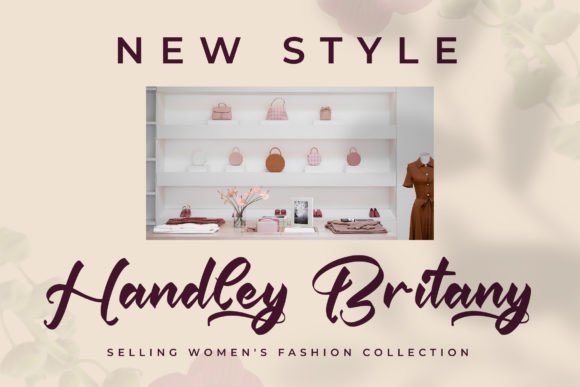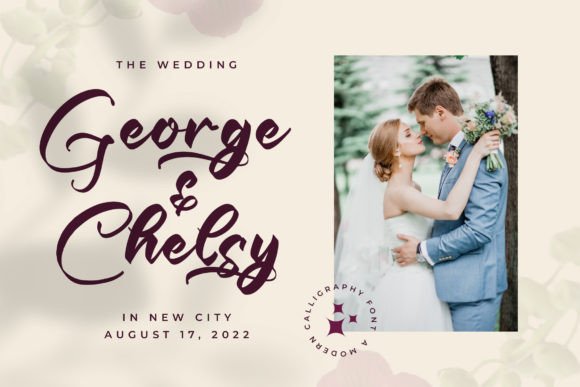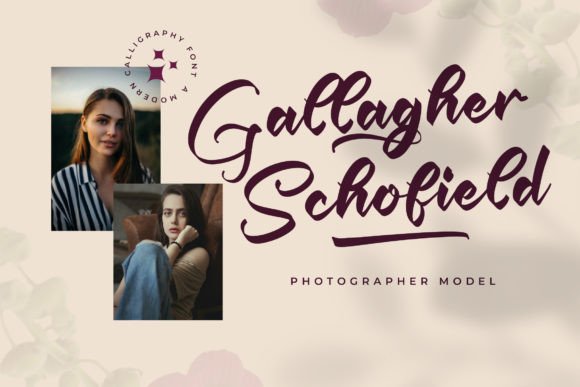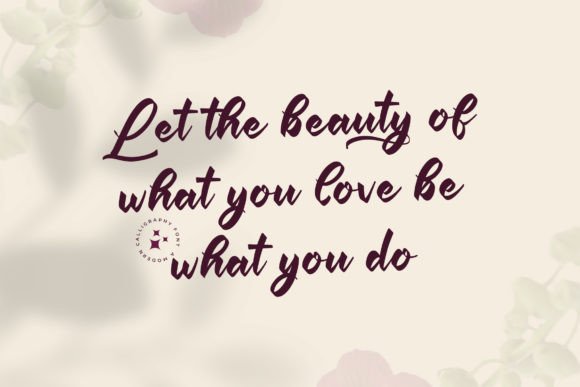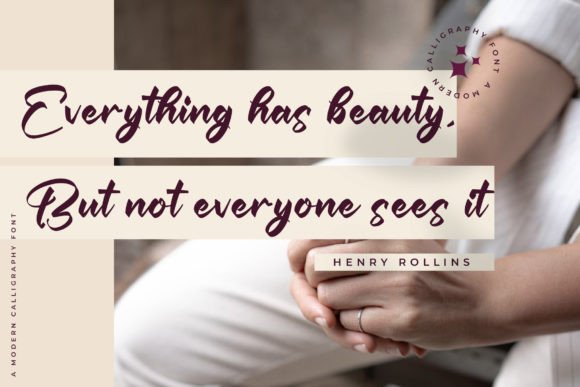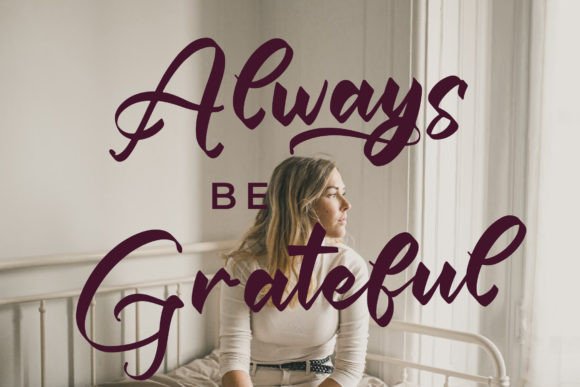
Introduction to Michele Fatehry Font
As a designer, there’s nothing quite like the thrill of bringing a creative project to life. The moment when all the elements come together in perfect harmony, and your vision takes shape. For many of us, that moment often begins with the perfect font. And today, we’re excited to introduce you to one of the most versatile and beautiful script fonts out there: the Michele Fatehry Font. This stunning modern calligraphy font is the perfect addition to any design project, from logos and branding to homeware and product packaging.
With its elegant, flowing script and high-quality design, the Michele Fatehry Font is a valuable resource for designers of all levels. Whether you’re working on a personal project or a client brief, this font is sure to add a touch of sophistication and style to your work. Plus, with a transparent background and free download option, you can easily incorporate it into your designs without any hassle.
Key Features of Michele Fatehry Font
- High-quality font designed for creative projects, perfect for adding a touch of elegance and sophistication.
- Transparent background, allowing for seamless integration with any design element.
- Designed to be highly legible, with a clear and crisp font that is suitable for both print and digital applications.
- Ideal for use in various design projects, including logos, branding, and typography-based art.
Honest Review: Michele Fatehry Font
I recently stumbled upon the Michele Fatehry Font, and I must say it’s been a pleasant surprise. This free download has quickly become a valuable design resource for my creative projects.
- High-quality typography: The Michele Fatehry Font boasts a unique, modern aesthetic that’s perfect for contemporary designs.
- Transparent background: The font’s transparent background makes it easy to customize and layer with other design elements.
- Limited font styles: While the font itself is beautiful, it’s limited to a single style, which may not be suitable for projects requiring multiple font variations.
- No bold or italic options: If you need bold or italic text, you may need to supplement with other fonts or create custom variations.
Overall, I’m impressed with the Michele Fatehry Font’s high quality and versatility. While it has some limitations, it’s a valuable addition to any designer’s toolkit, and I’d definitely recommend it for creative projects requiring a modern, sleek aesthetic.
Michele Fatehry Font
The Michele Fatehry Font is a high-quality, free design resource perfect for creative projects. With its unique style and transparent background, it’s ideal for adding a touch of elegance to your designs.
Tips for Getting the Most Out of Michele Fatehry Font
For the best results, use the Michele Fatehry Font on a light background to make the text stand out. You can also experiment with different font sizes and styles to add visual interest to your design.
The Michele Fatehry Font is perfect for a variety of creative projects, including wedding invitations, business cards, and social media graphics. Its elegant style and transparent background make it a popular choice for designers and non-designers alike.